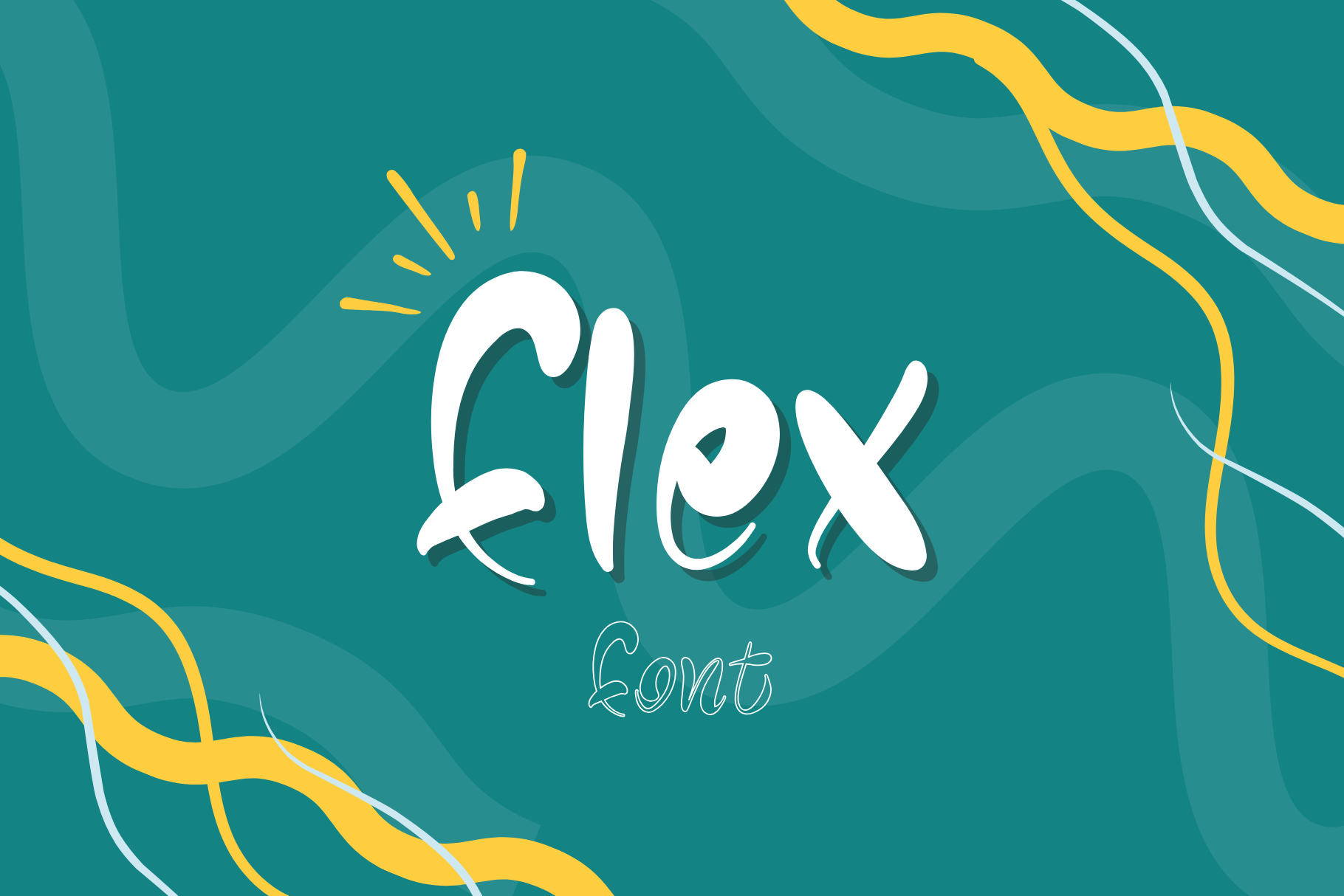
Flex Modern Font
Flex is a modern, handwritten font with a bold and energetic personality.
Its dynamic, strong lines give projects a striking and contemporary style. With its unique, slightly raw aesthetic, Flex is perfect for designs that require a strong statement and distinctive look.
Flex is ideal for branding, social media, posters, invitations, book covers, and any project where a unique and authentic character is essential. It also works great for logos, stickers, clothing, t-shirts, and other designs that call for a stylish, handwritten touch.